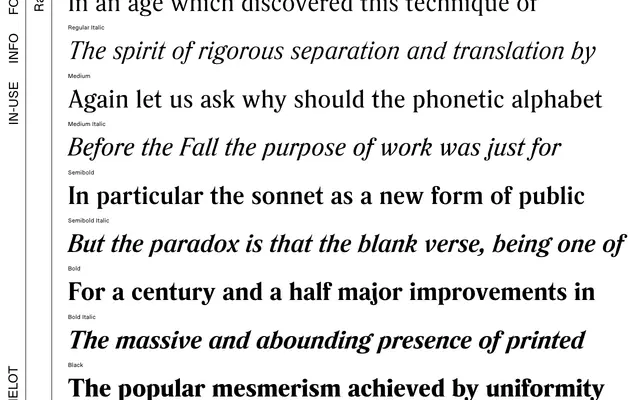
Rando
Camelot · Maurice Göldner
A contemporary revival of German romanesque typefaces from the late 19th and early 20th centuries, designed by Maurice Göldner in five weights with text and display versions.
Drawing on models such as Anker Romanisch by Schelter & Giesecke and Hamburger Römisch by Schriftguß A.G., Rando brings a largely overlooked category of German type back into circulation. The family runs across five weights from Regular to Black, each with a matching italic, and splits into text and display versions for different optical requirements. A comprehensive OpenType feature set includes alternate letterforms, old-style figures, contextual alternates and localised forms across approximately 250 Latin-based languages.
Rando is explicitly described as a homage to German romanesque typefaces of the late 19th and early 20th century, a distinct Latin serif tradition characterised by sturdy, upright forms with bracketed serifs and a roman-style construction.